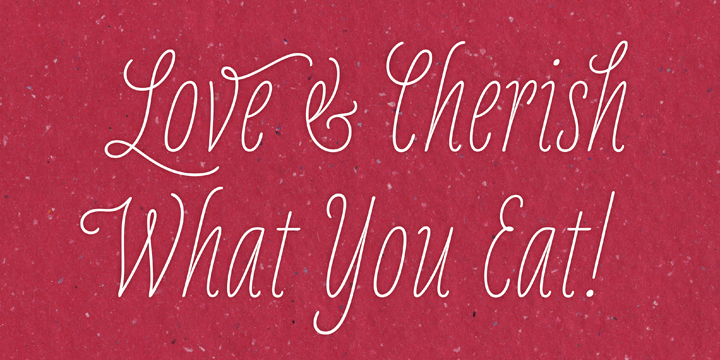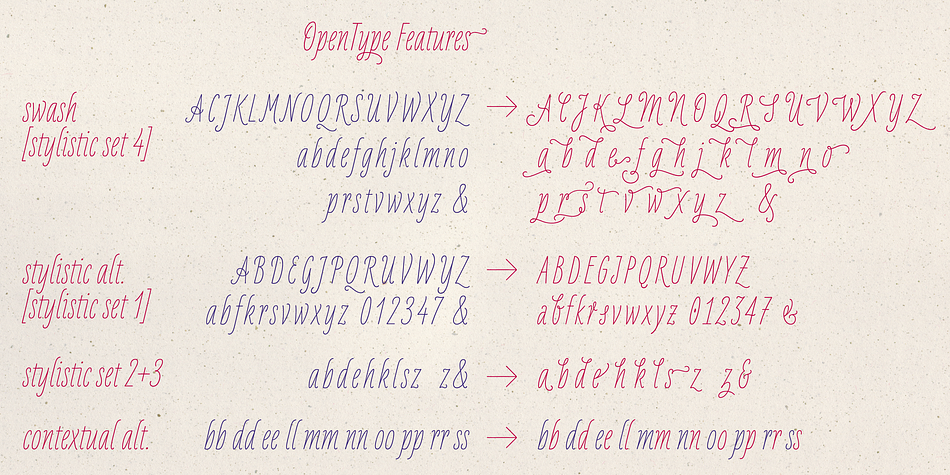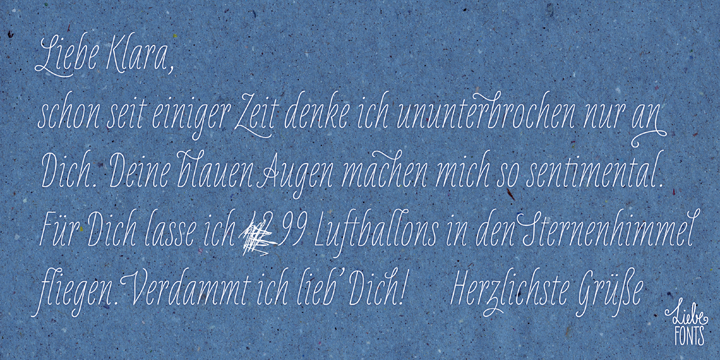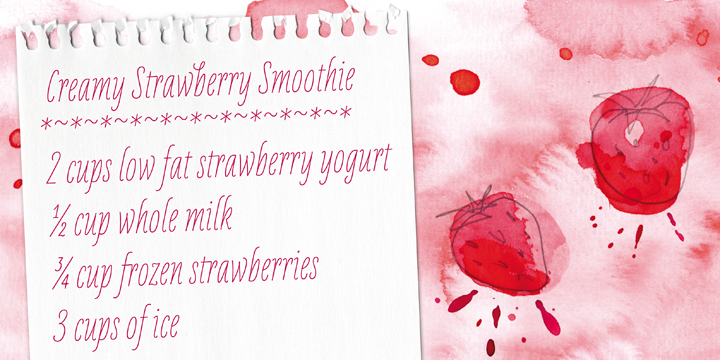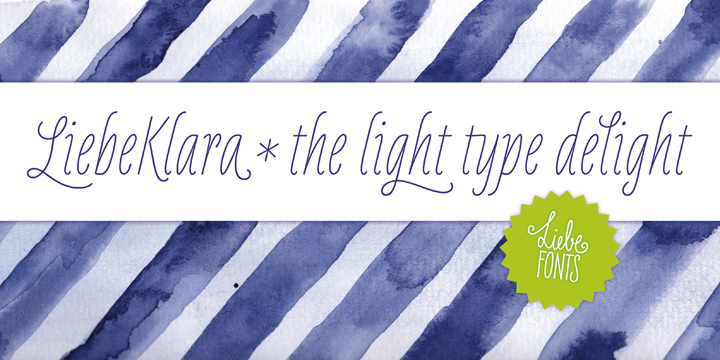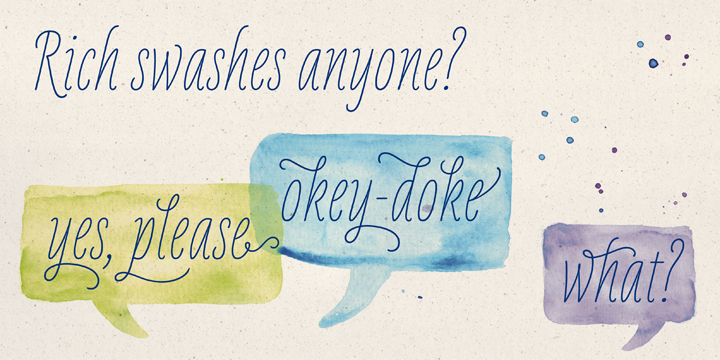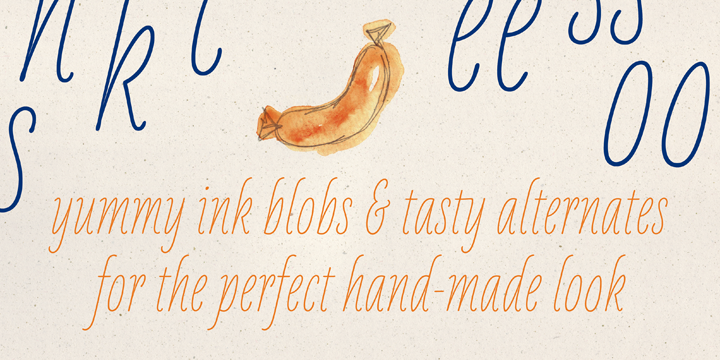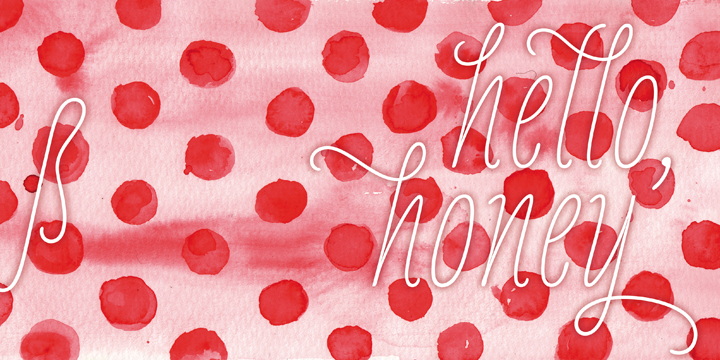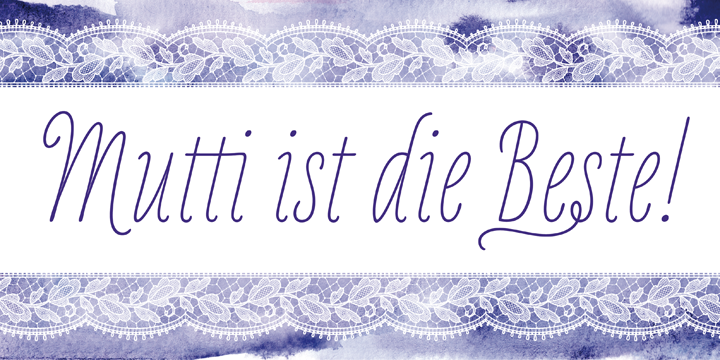
LiebeKlara is a script font published by LiebeFonts.
LiebeKlara is LiebeFonts’ most delicious gourmet creation yet.
The mouth-watering look of savory swashes and the fine aroma of masterfully sprinkled contextual alternates will make everyone happy—your spouse, family, and friends.
LiebeKlara is festive enough to sit on wedding menus, but still warm enough to give everyday dinner invitations the personal flavor they deserve.
LiebeKlara likes company—for example when her girlfriend LiebeErika comes over and they have some LiebeOrnaments.
LiebeKlara also likes travelling! She speaks most Western languages fluently and with a cute accent.
Try it for yourself—LiebeKlara is calorie-free but (or because) she is very delicate.
LiebeKlara comes with a tasty variety of ligatures and alternative forms available through OpenType features. (Please make sure your software supports OpenType if you wish to use the advanced features.)
The font contains over 580 carefully hand-crafted glyphs—so it’s more like two or three fonts in one.